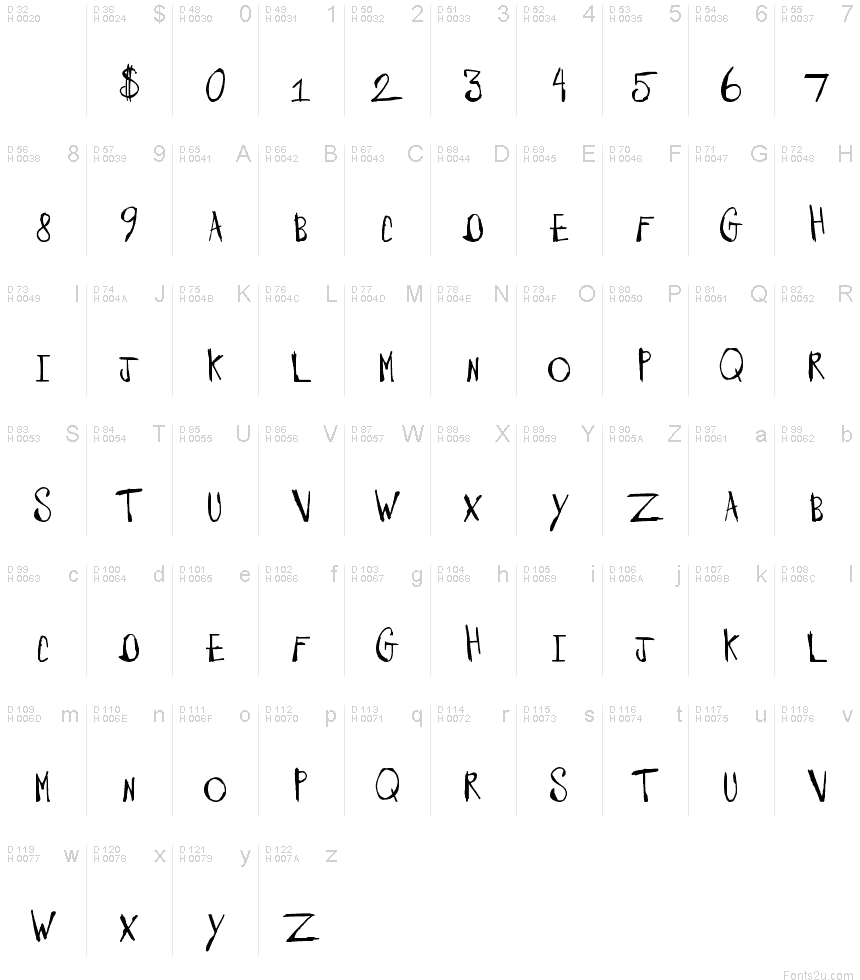
Barnyard Massacre from Xerographer Fonts is a free scary display font with tall, roughly drawn letters and a nervous, uneven silhouette. Stroke widths shift sharply, and the crooked forms look scratched out in haste rather than carefully constructed.
Horror posters and Halloween event signage can use its raw lettering to suggest panic, menace, and low-budget splatter films. The same abrasive marks also fit punk album covers and band merchandise. In either setting, the lettering can become part of the artwork itself, giving a record, event, or apparel line an unmistakably unruly identity.